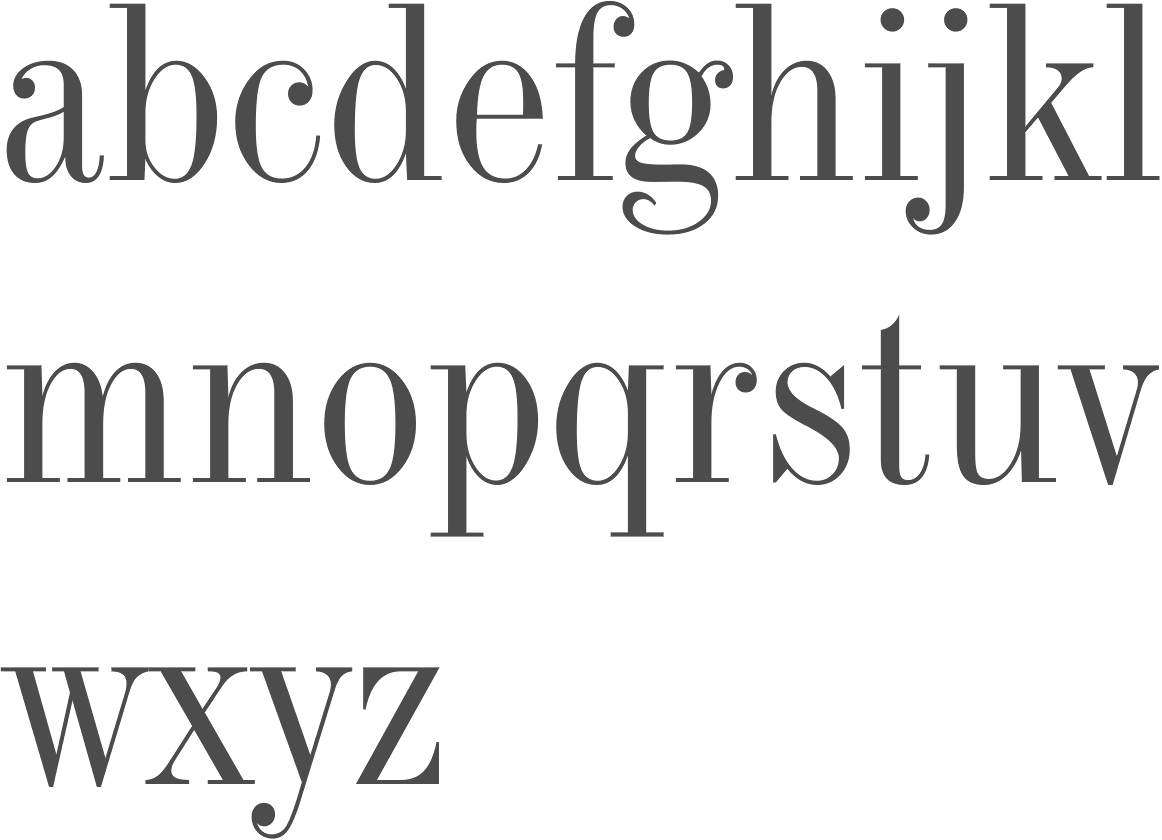
Cool Transitional Serif Fonts References
Cool Transitional Serif Fonts References. Old style, transitional, didone and slab serif, in order of first appearance. If you want to create professional printout, you should consider a commercial font.
Old Style, Transitional, Didone And Slab Serif, In Order Of First Appearance.
Didone these modern fonts are easily distinguishable by their. It was released by sharp type in 2020 and has 5. Home fonts serif fonts serif, transitional fonts a a 1 2 3 4 › last › showing 1.
Z y m m alice cyreal 1 styles. Web category:transitional serif typefaces this category contains transitional or baroque serif typefaces. This font, created in 1932, is.
Web Transitional Serif Fonts Everyone Knows Times New Roman Font, Which Is Commonly Used As The Default Font In Computer Text Editors.
Web some famous serif fonts include times new roman, garamond, cambria, and georgia. Web serif fonts can be broadly classified into one of four subgroups: It is at this point in time where we begin to.